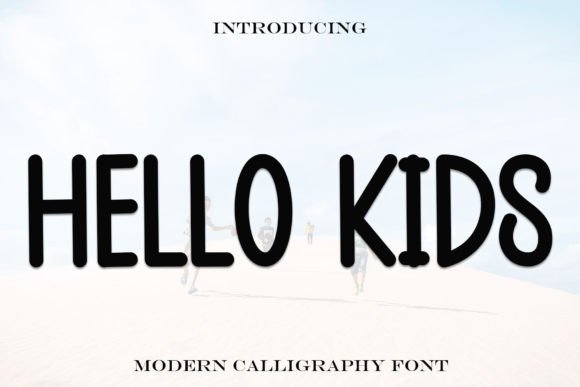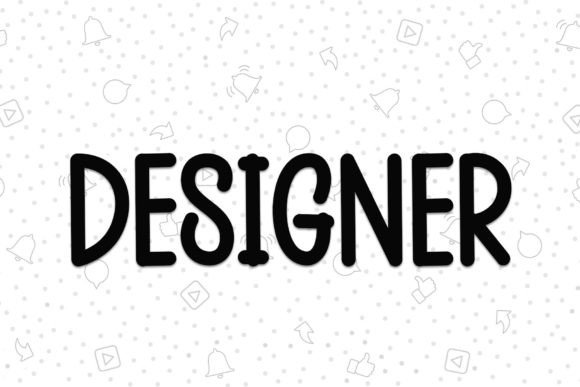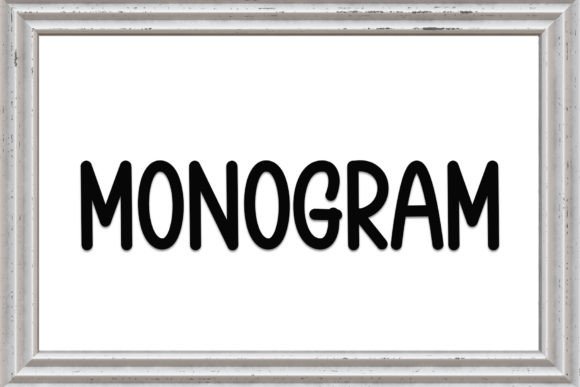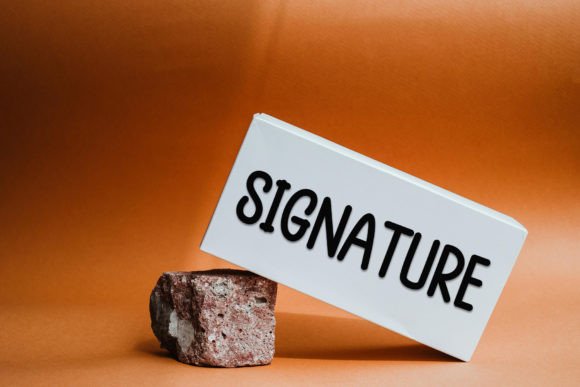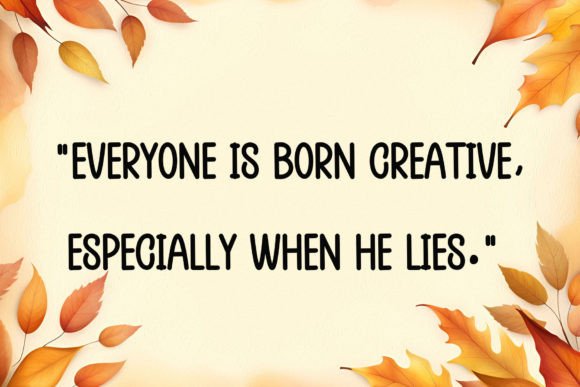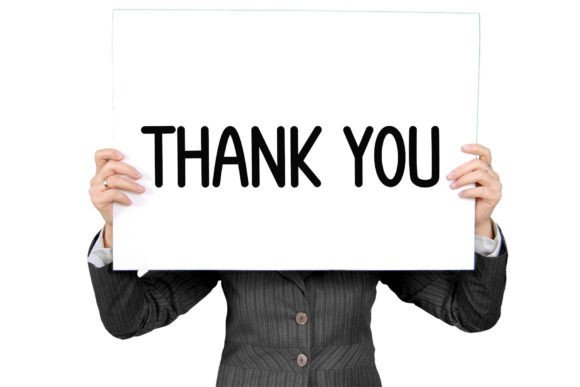
Discover the Timeless Charm of Hello Kids Font
Remember the moment when you stumbled upon the perfect font that perfectly captured the essence of your creative project? For designers, this moment is pure magic. It’s the spark that ignites the flame of inspiration, guiding you towards crafting something truly special. If you’re reading this, chances are you’re on the lookout for that elusive font that elevates your designs to new heights.
Enter Hello Kids Font – a stunning, elegant handwritten font that adds a touch of sophistication to any project. Its unique style is a perfect blend of classic charm and modern flair, making it an ideal choice for designers seeking to create memorable designs. With its timeless appeal, Hello Kids Font is a valuable addition to any design toolkit, allowing you to bring your creative vision to life with ease.
Hello Kids Font Key Features
- Font Family: Hello Kids is a sans-serif font designed specifically for children’s educational materials.
- Unique Characteristics: The font features rounded edges, simple shapes, and a child-friendly aesthetic, making it perfect for educational materials, children’s books, and websites targeting young audiences.
- Font Style: Hello Kids font is available in regular and bold styles, allowing for flexibility in design and layout.
Hello Kids Font Review
Hello Kids Font is a fun and playful typeface designed to engage children in various educational settings. Here’s my honest review of this font.
- The font’s whimsical design makes it perfect for children’s books, educational materials, and even branding for kids-related businesses.
- The bold and vibrant colors used in the font make it visually appealing and attention-grabbing.
- Hello Kids Font comes in multiple weights and styles, making it versatile and easy to use in various applications.
- The font is well-suited for digital use, including websites, apps, and social media platforms.
- The font may not be as effective in formal or professional settings, where a more traditional and serious typeface is preferred.
- The bold and playful design may be overwhelming for some users, particularly those with visual sensitivities.
- The font may not be as scalable as some other typefaces, which can affect its quality at larger font sizes.
Overall, Hello Kids Font is a great choice for educational and children-related projects. Its playful design and vibrant colors make it perfect for engaging young audiences. However, it may not be the best fit for more formal or professional settings.
For best results, use “Hello Kids Font” for titles, headings, and other large text elements.
It’s ideal for creating playful and engaging designs for children’s books, educational materials, and kids’ party invitations.
Experiment with different font sizes, colors, and styles to create a unique and eye-catching design.
Alternatives to Hello Kids Font
Great Vibes is a modern, handwritten font that conveys a sense of playfulness and creativity. It’s perfect for designing kids’ books, educational materials, and promotional materials for children’s events.
Comparison to Hello Kids Font: Great Vibes has a more modern and sophisticated feel compared to Hello Kids Font, which is more childlike and simplistic. Great Vibes is ideal for designers who want to convey a sense of fun and adventure while still maintaining a level of professionalism.
Alex Brush is a elegant, handwritten font that exudes a sense of sophistication and refinement. It’s perfect for designing high-end kids’ products, such as luxury toys or premium educational materials.
Comparison to Hello Kids Font: Alex Brush has a more refined and sophisticated feel compared to Hello Kids Font, which is more casual and playful. Alex Brush is ideal for designers who want to convey a sense of luxury and high-end quality.